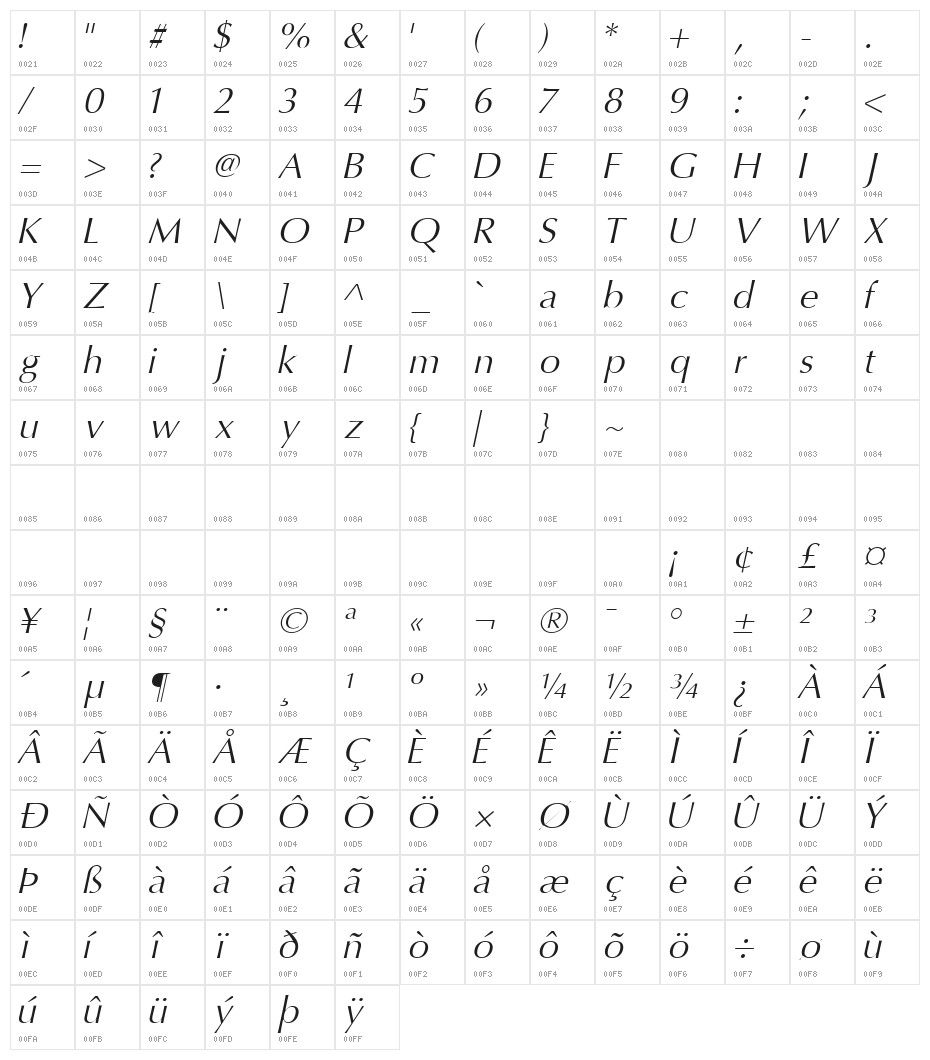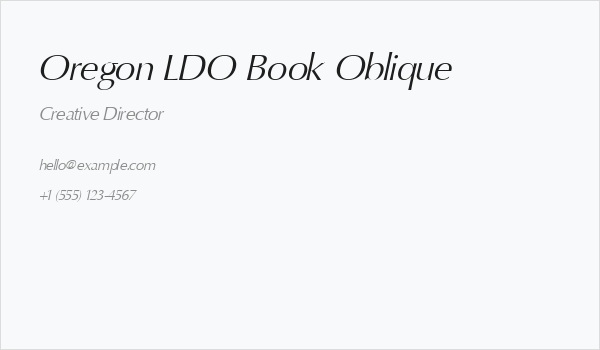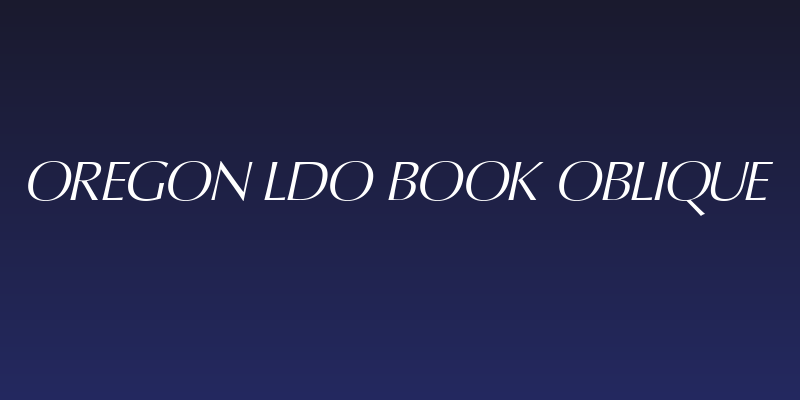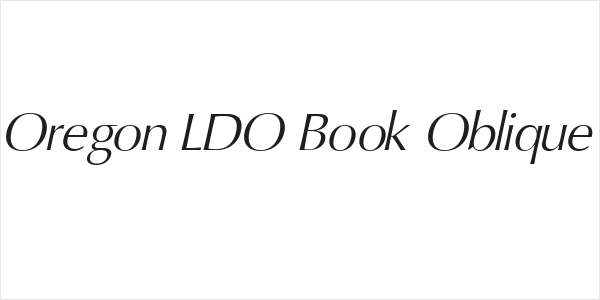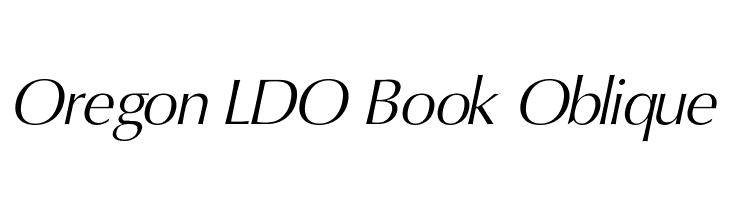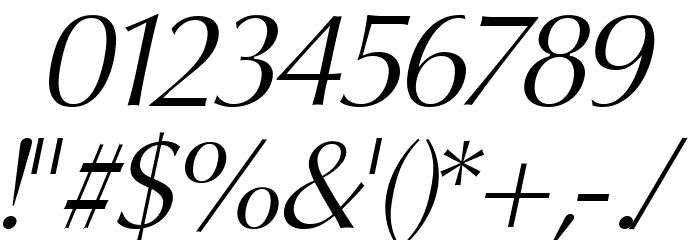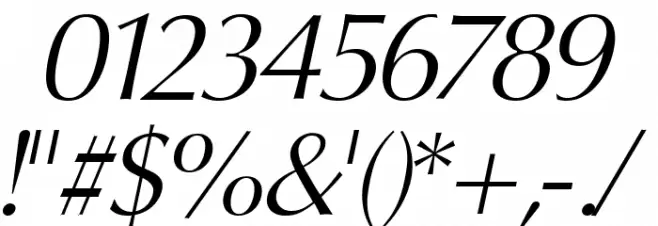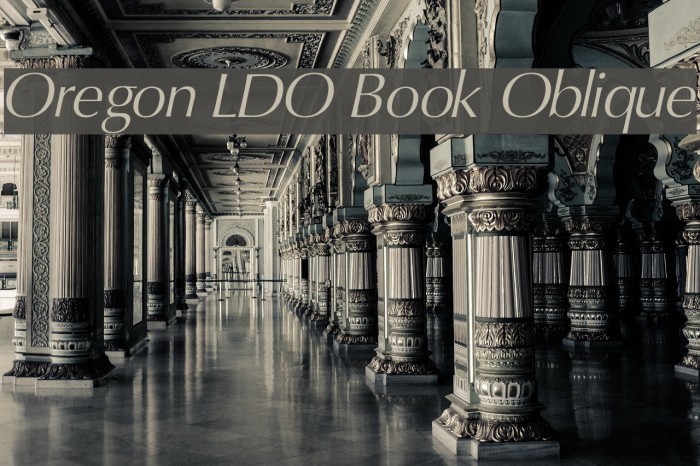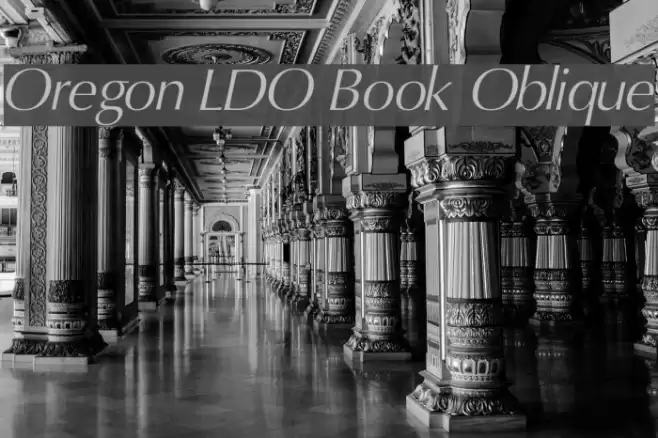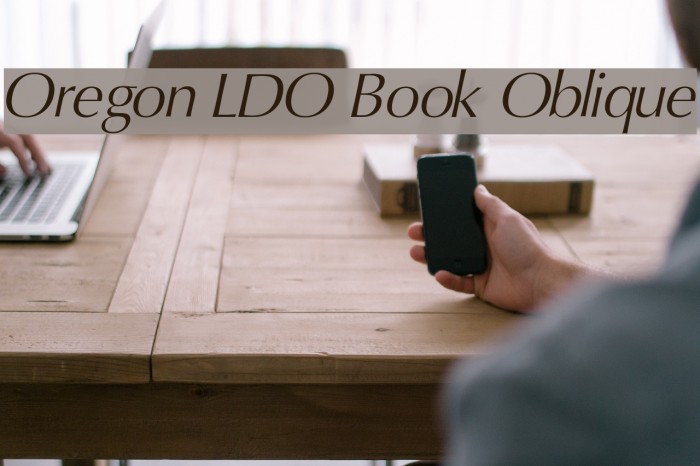
Oregon LDO Book Oblique Font
Oregon LDO Book Oblique Description
This font features an elegant and sophisticated design with a slight oblique slant, giving it a dynamic and modern appearance. The characters are well-proportioned with a consistent stroke width, providing a clean and professional look. The uppercase letters are tall and commanding, while the lowercase letters maintain a harmonious balance. The numerals are clear and easy to read, making them suitable for various applications. Special characters are included, adding versatility to the font's use. Overall, this font exudes a sense of refinement and style, making it ideal for projects that require a touch of elegance.
| Use Case | Headlines, Body text, Logos |
| Proposed Projects | Ideal for branding, editorial design, fashion magazines, and luxury product packaging. |